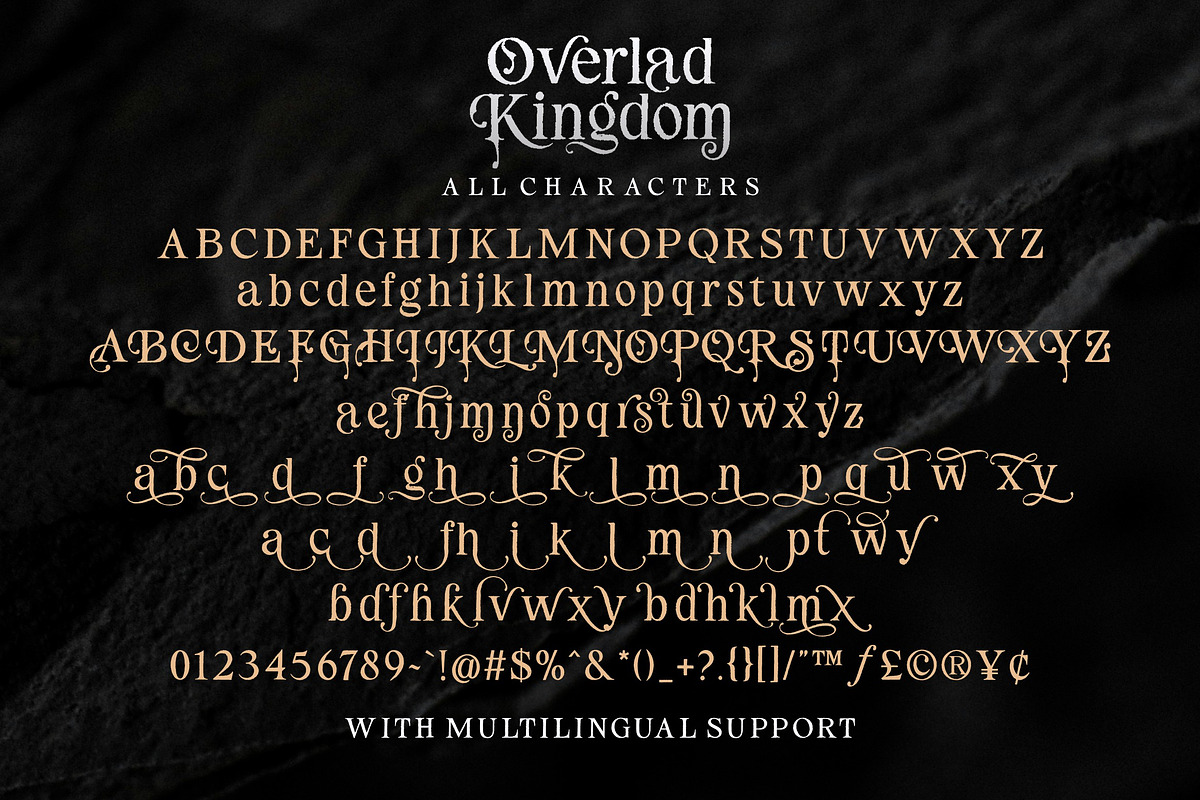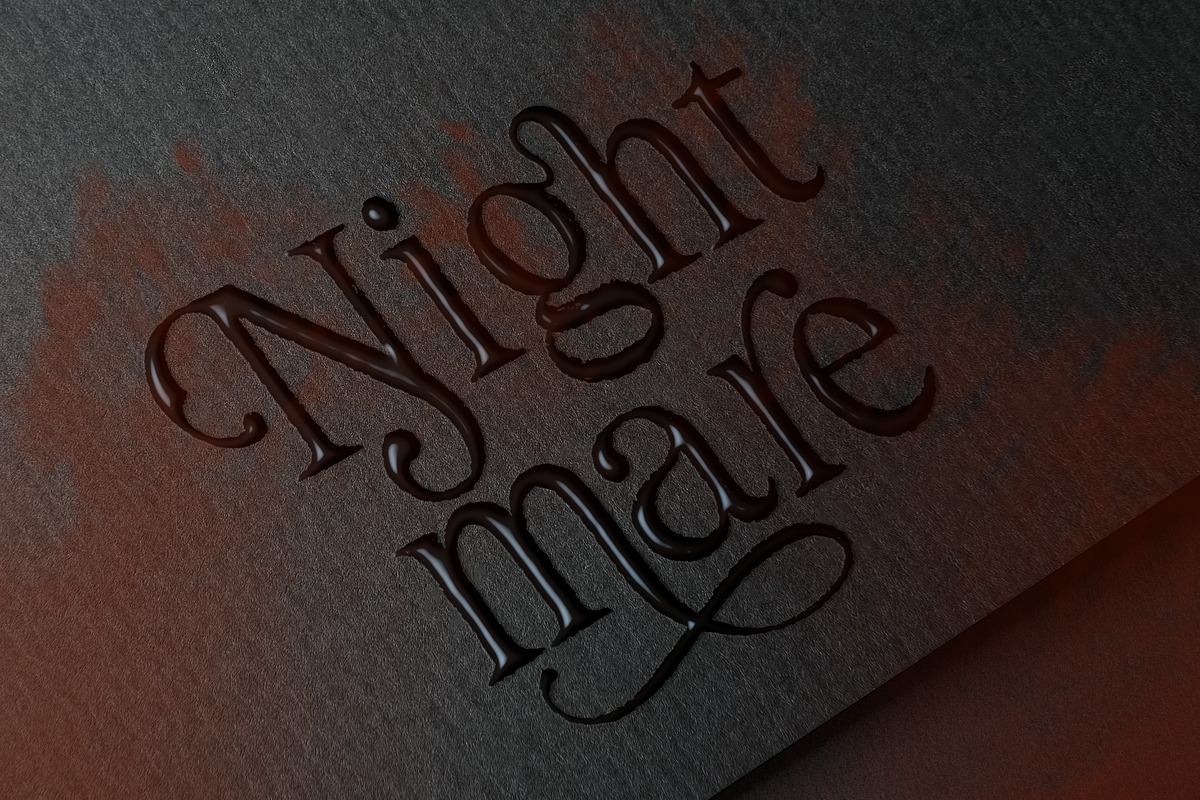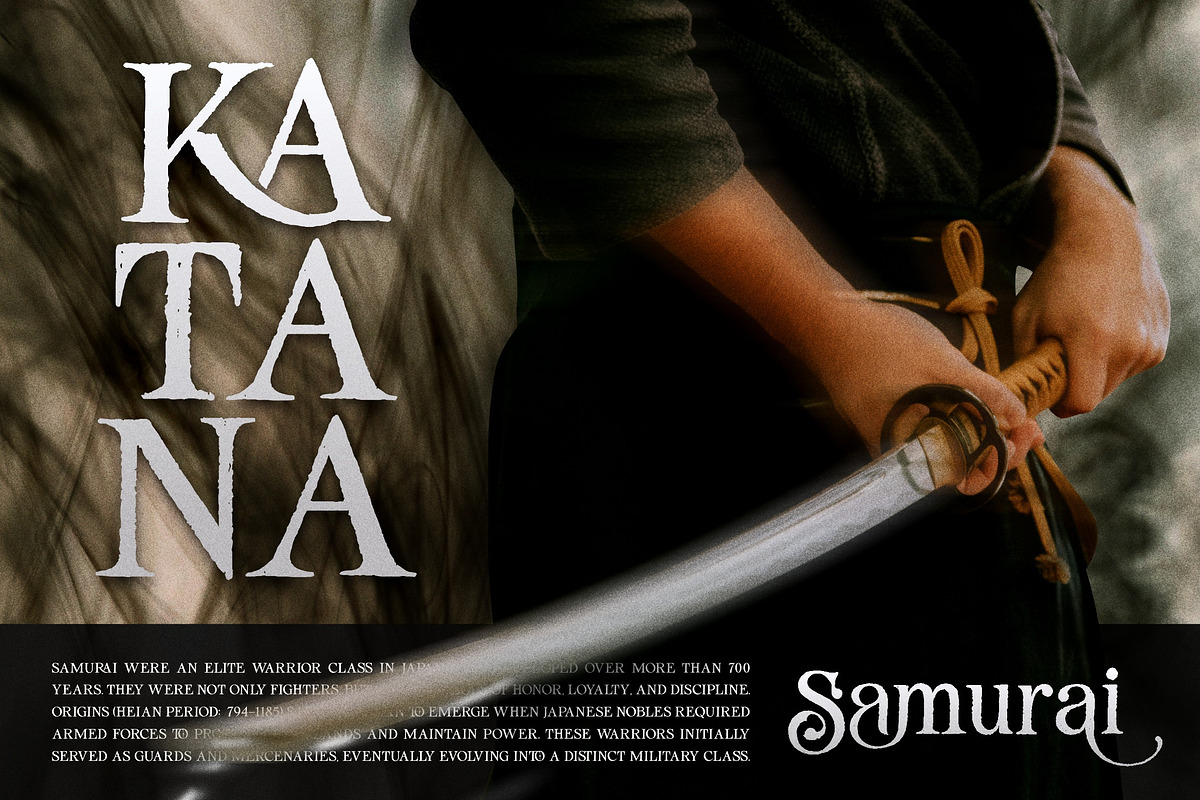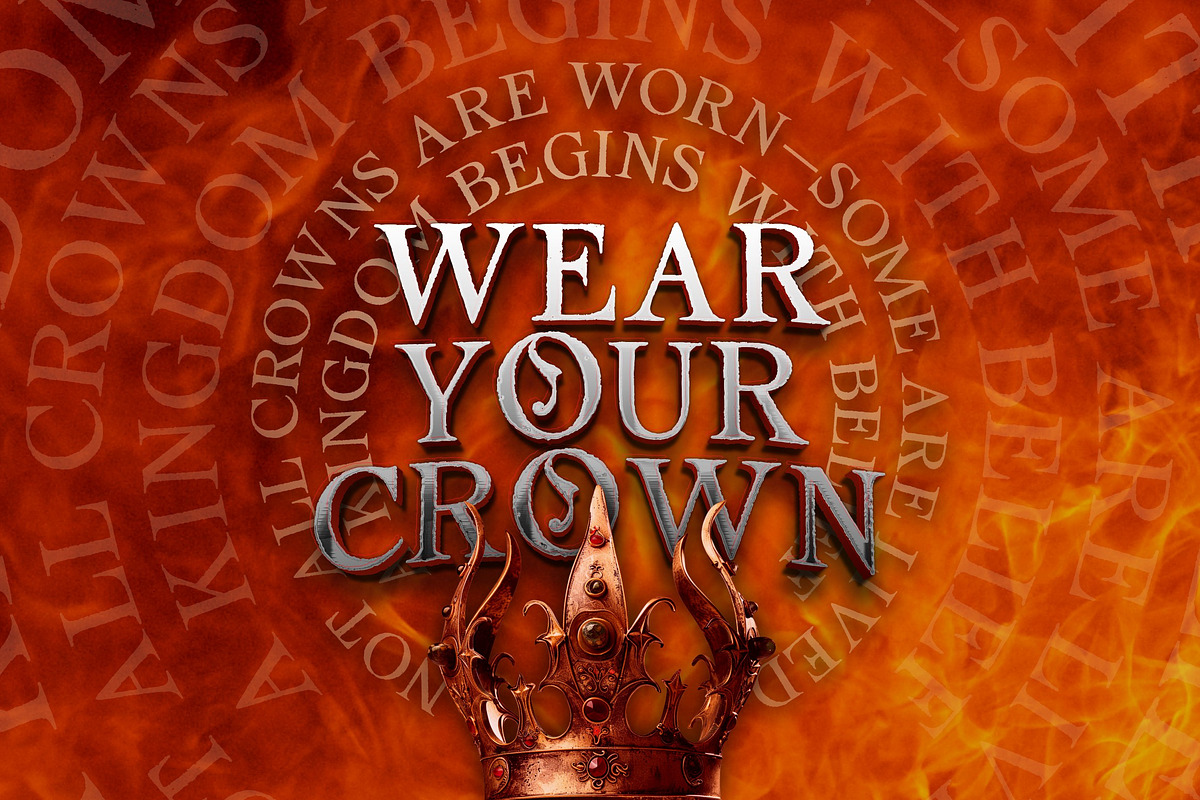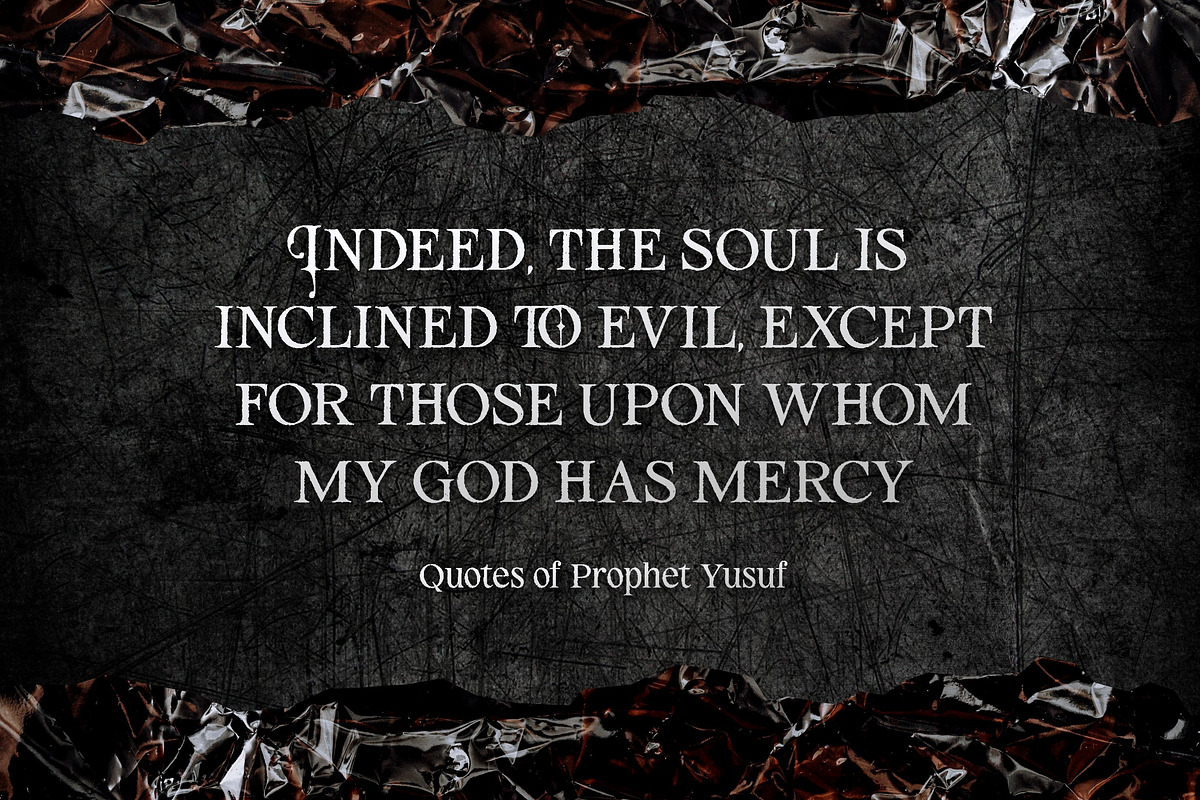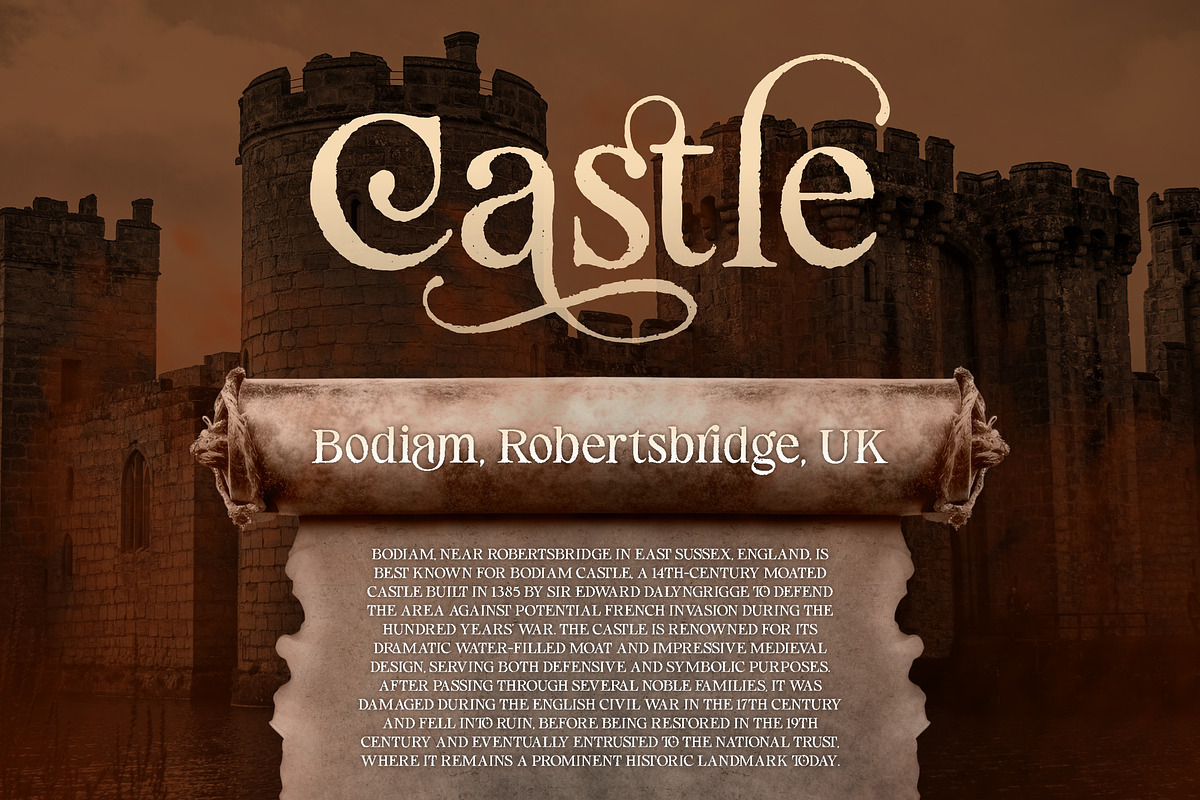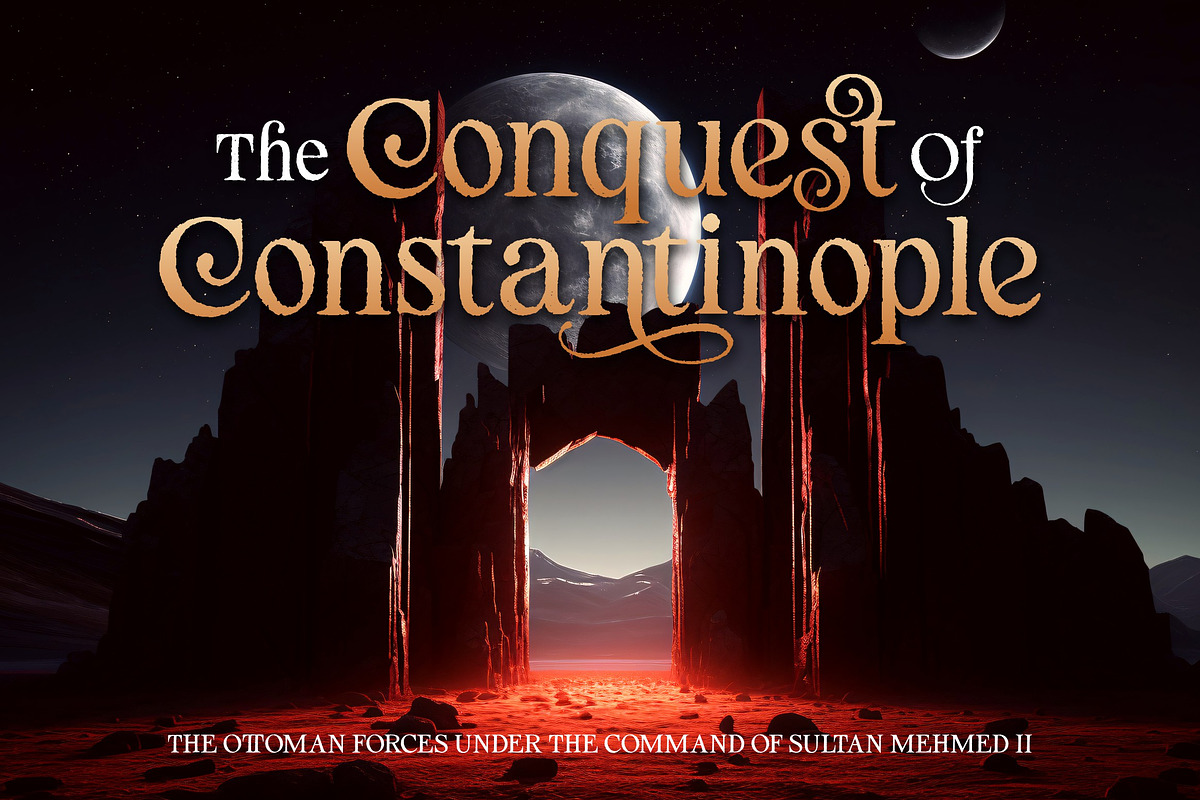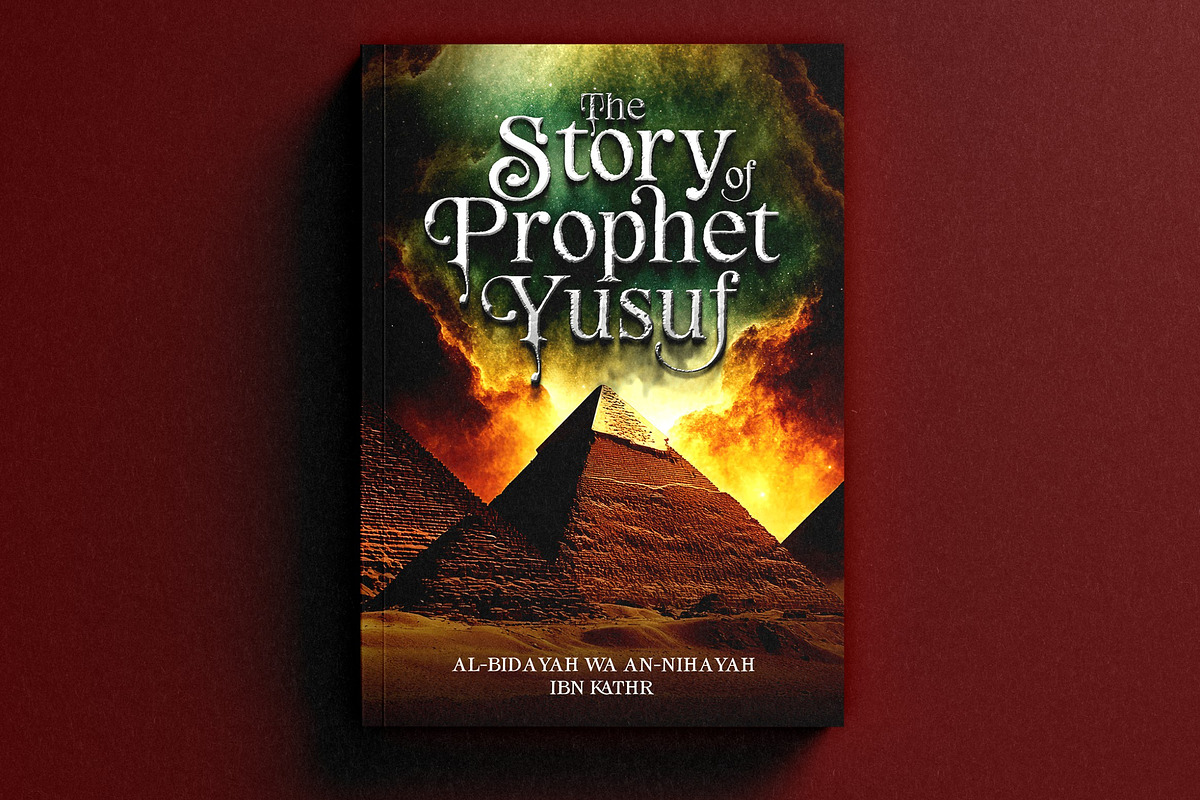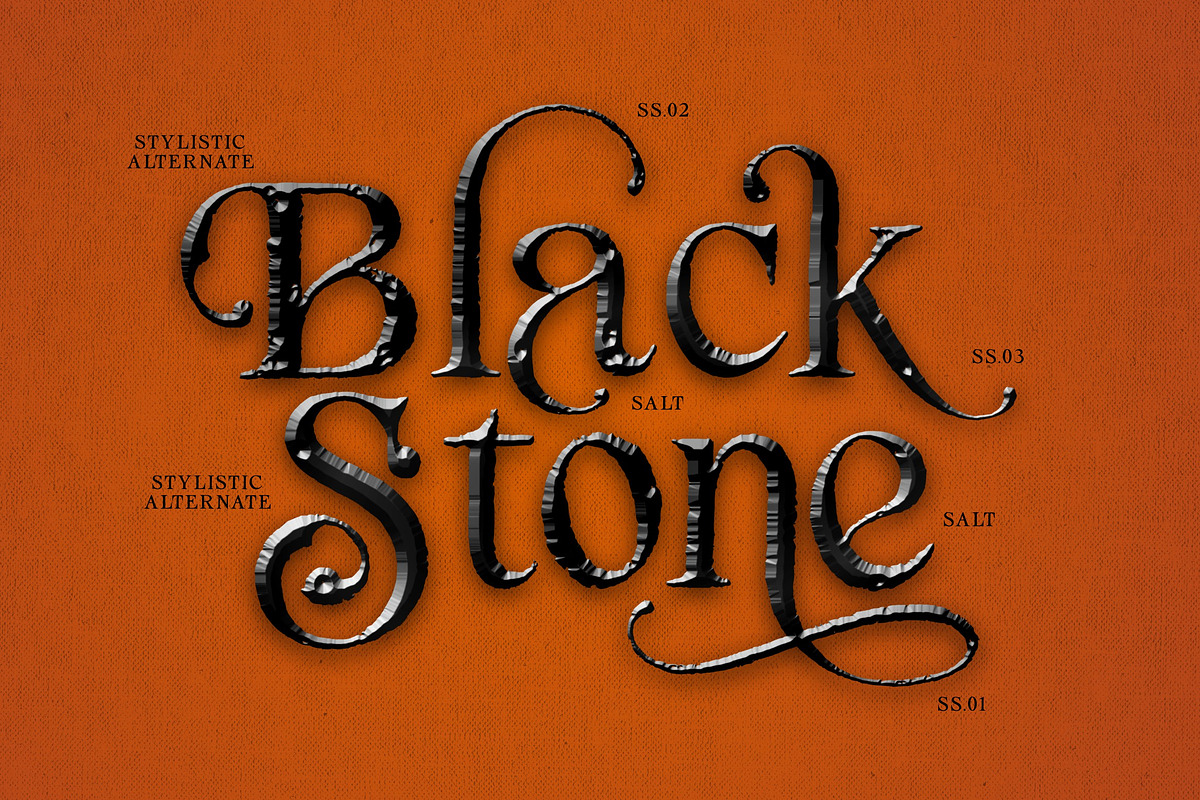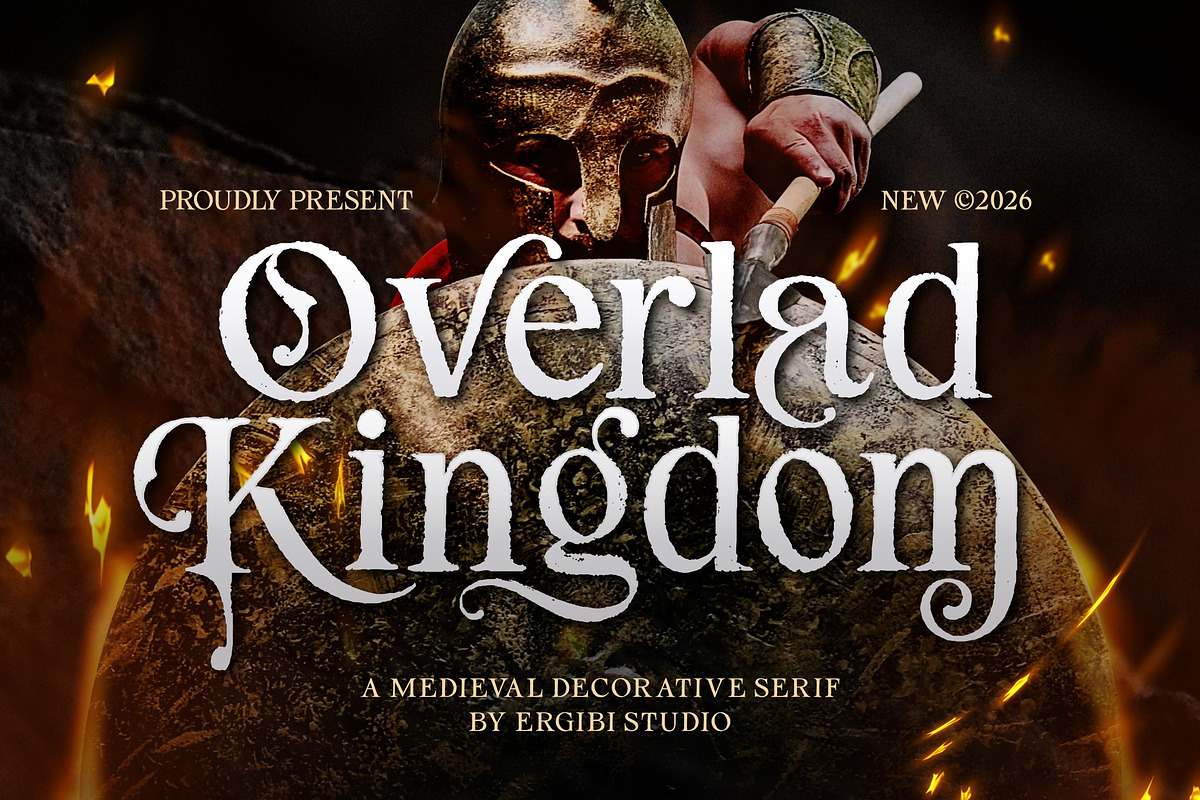
Overlad Kingdom - Decorative Serif
Overlad Kingdom is a decorative serif typeface inspired by the grandeur of old empires and legendary kingdoms. Crafted with classic serif structures and bold ornamental details, this font evokes a strong sense of heritage, power, and timeless authority.
Its aged character is enhanced by subtle grunge textures along the edges of each letter, giving Overlad Kingdom a weathered, battle-worn appearance—as if carved from ancient stone or forged in a medieval era. The textured contours add depth and authenticity, making the font feel raw, dramatic, and full of history.
- Stylistic Alternate